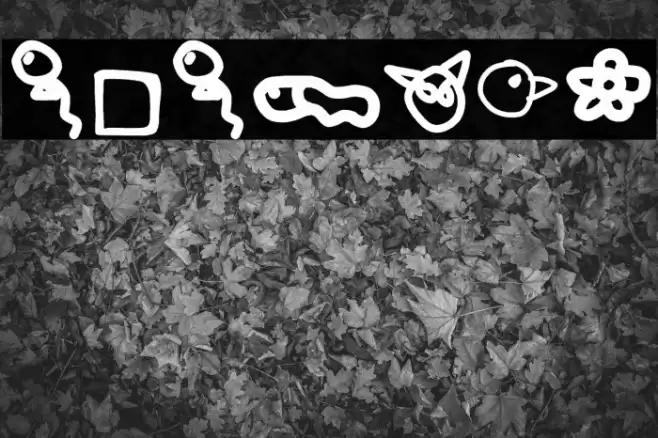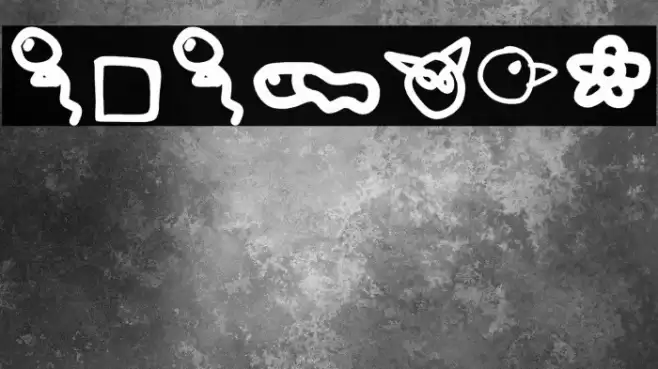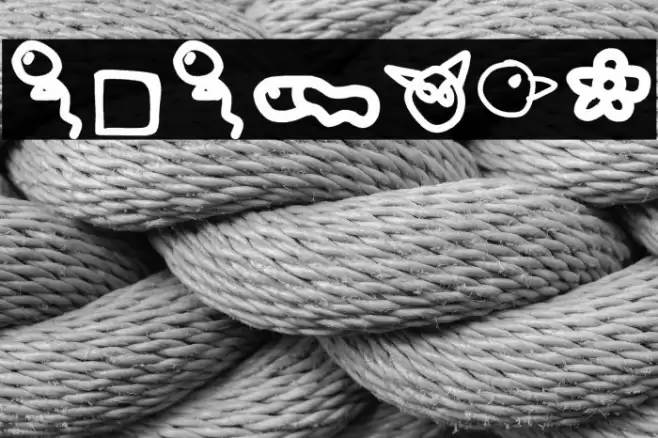
KidPixymbols Font
KidPixymbols Description
This set of symbols features playful and whimsical designs, each character resembling a hand-drawn doodle. The symbols include a variety of shapes and faces, each with a unique expression or form, such as stars, circles, and abstract figures. The style is reminiscent of child-like drawings, with uneven lines and a casual, informal appearance. These symbols evoke a sense of fun and creativity, making them suitable for projects that aim to capture a youthful or artistic vibe. The overall look is informal and imaginative, perfect for adding a touch of personality to any design.
Playful, hand-drawn symbols with a whimsical, child-like style from Uncategorized fonts.
- Proposed Projects: Ideal for children's book illustrations, educational materials, playful branding, or creative art projects.
- Overall Style: Whimsical, Playful
- Use Case: Creative projects, Illustrations, Branding